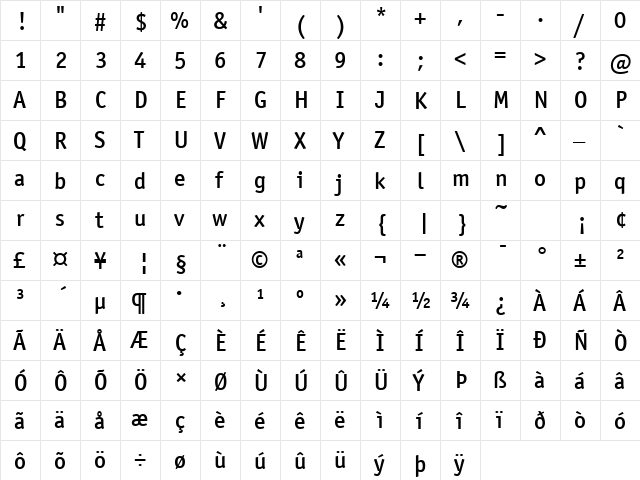
OfficinaSanITCTT Medium
| Foundry | International Typeface Corporation |
| Designer | Erik Spiekermann, Ole Schaefer |
Design Context for OfficinaSanITCTT Typeface
OfficinaSanITCTT offers clean, dependable letterforms without strong stylistic allegiance, making it a practical choice for designers who need flexibility.